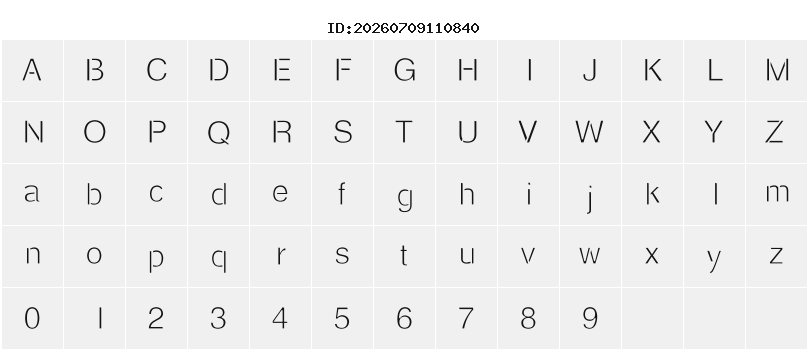
• Font Name: 叶根友微典
• Font Style: 常规
• Full Font Name: 叶根友微典 常规
• Version: Version 1.00 October 22, 2015, initial release
About 叶根友微典.ttf
叶根友微典.ttf is a modern, elegant sans-serif font designed for ultimate readability and visual harmony. Perfect for branding, headlines, web design, and print materials.